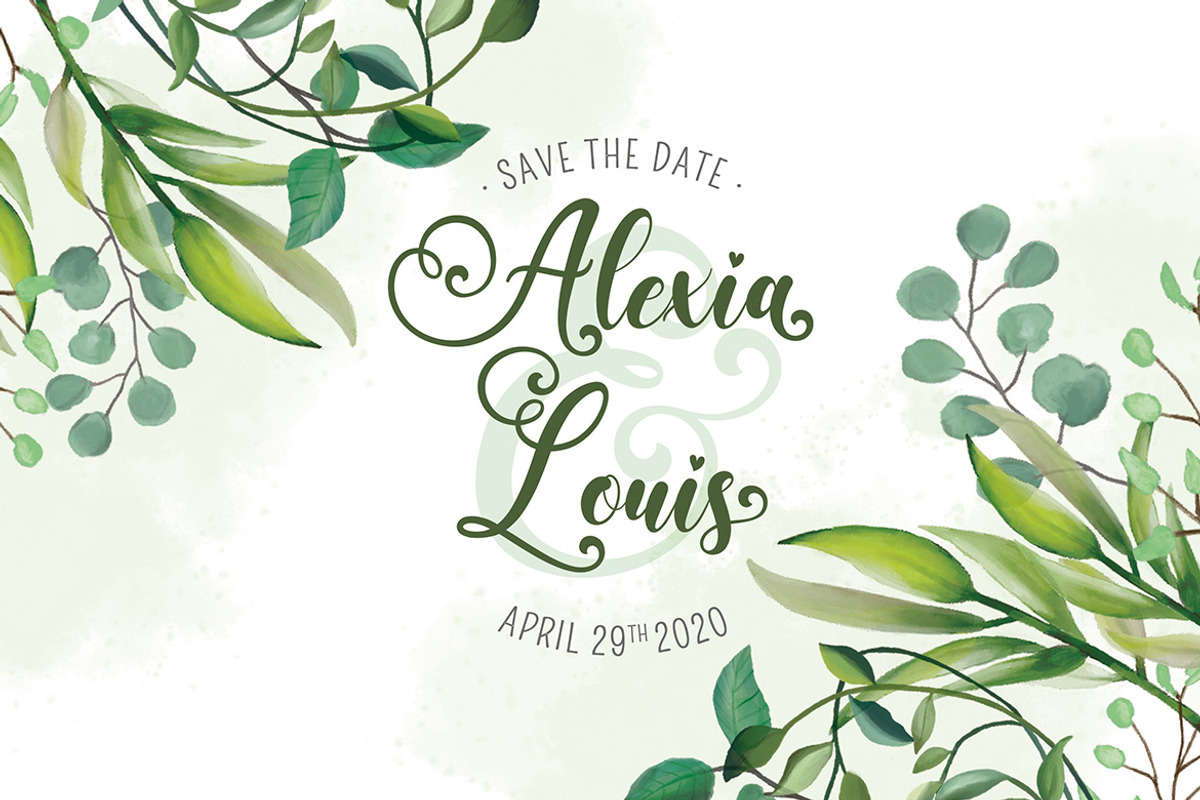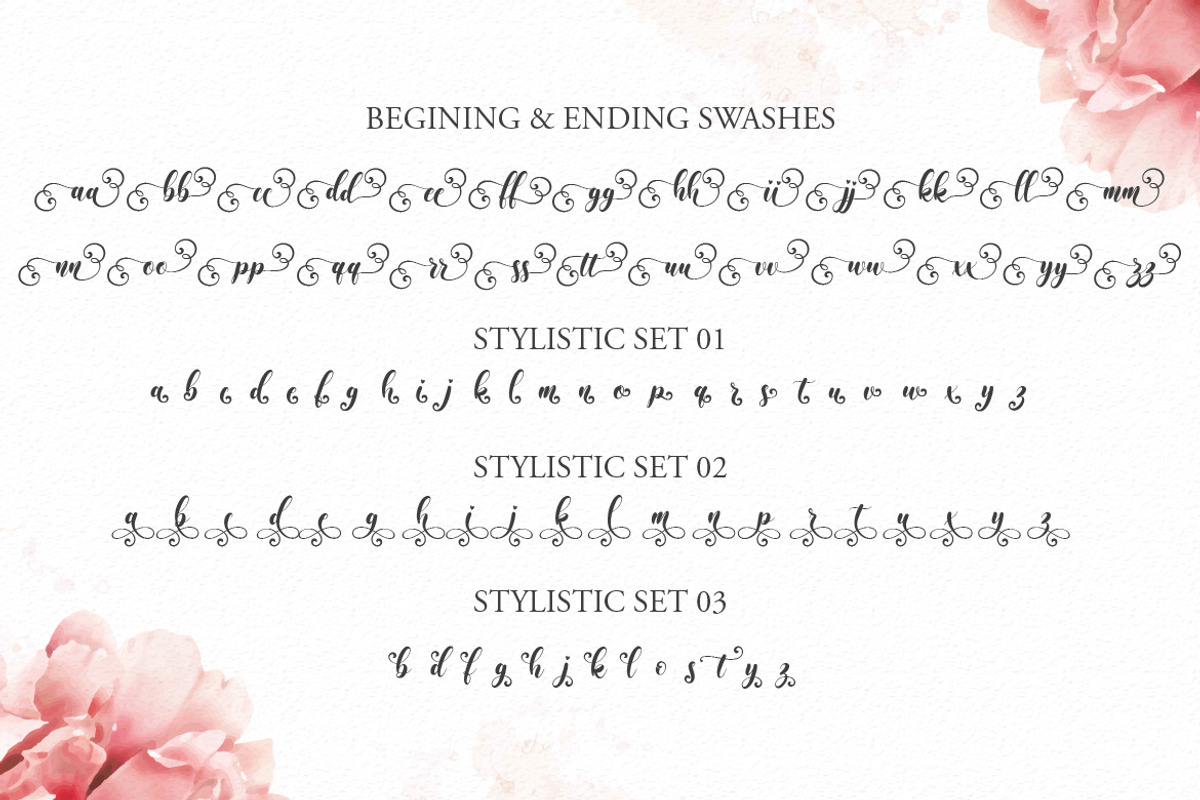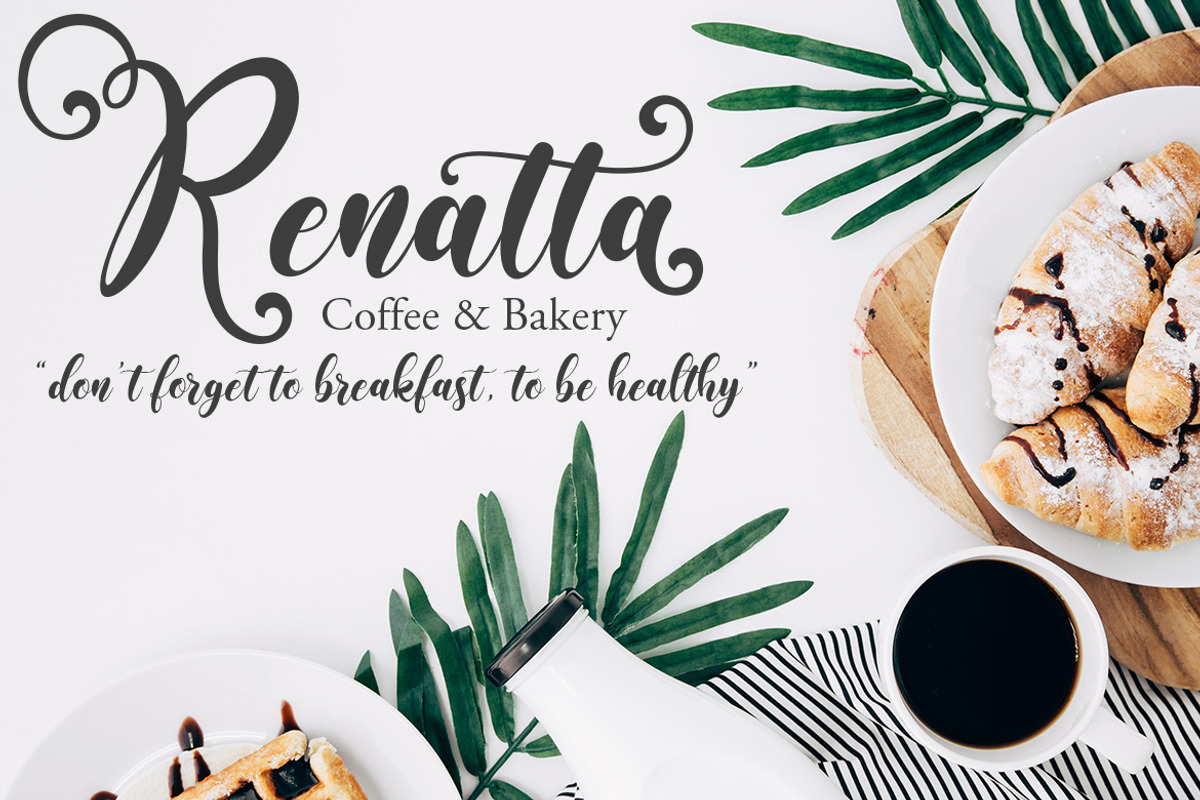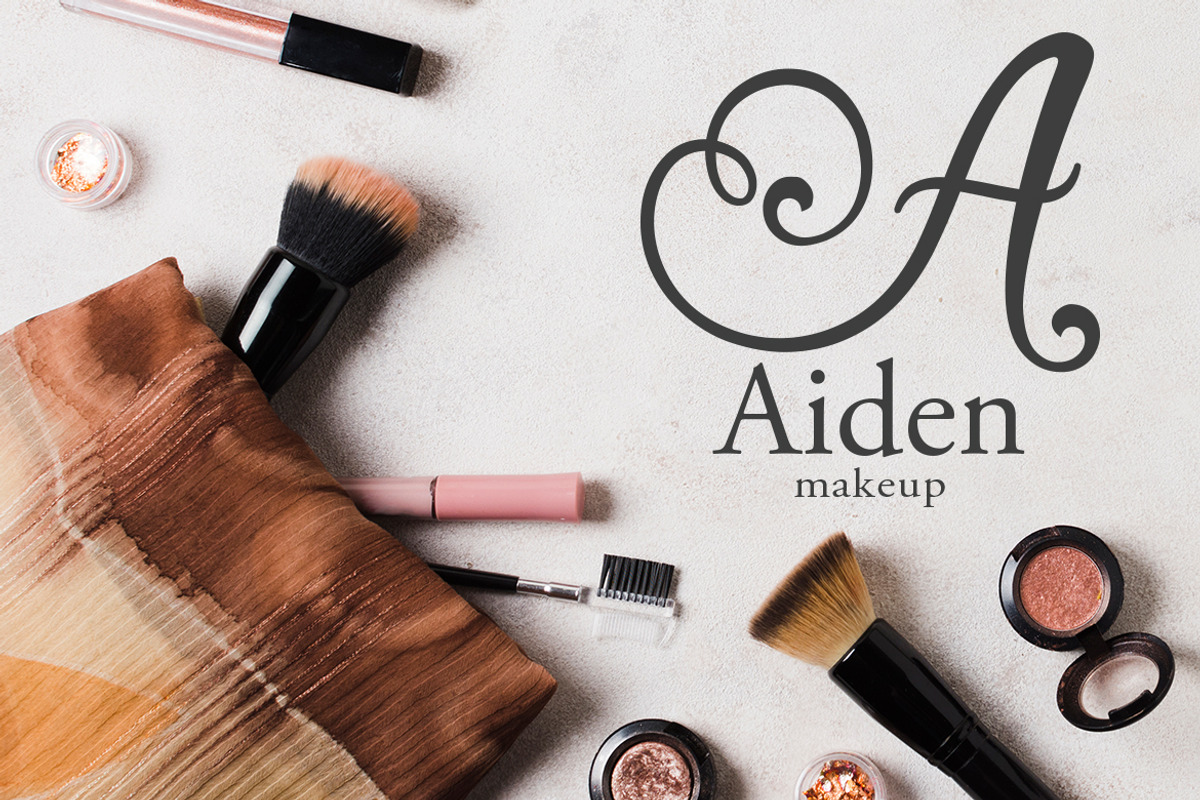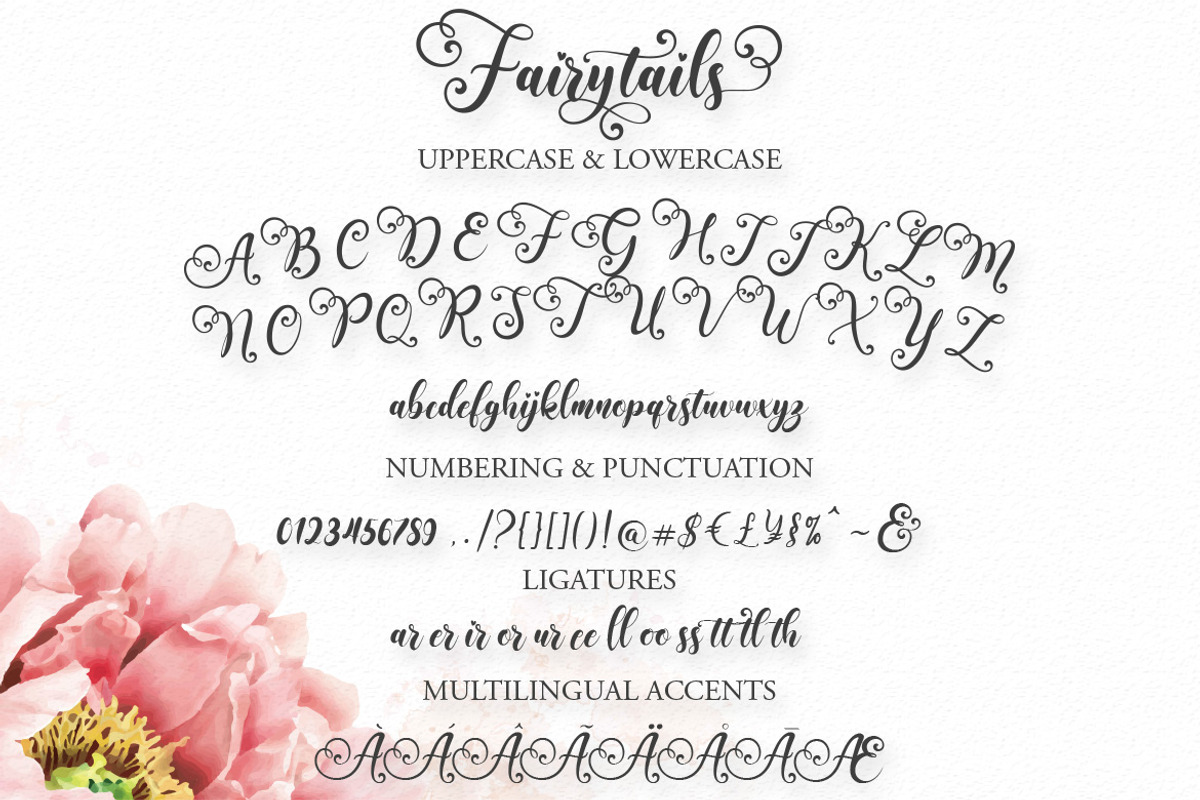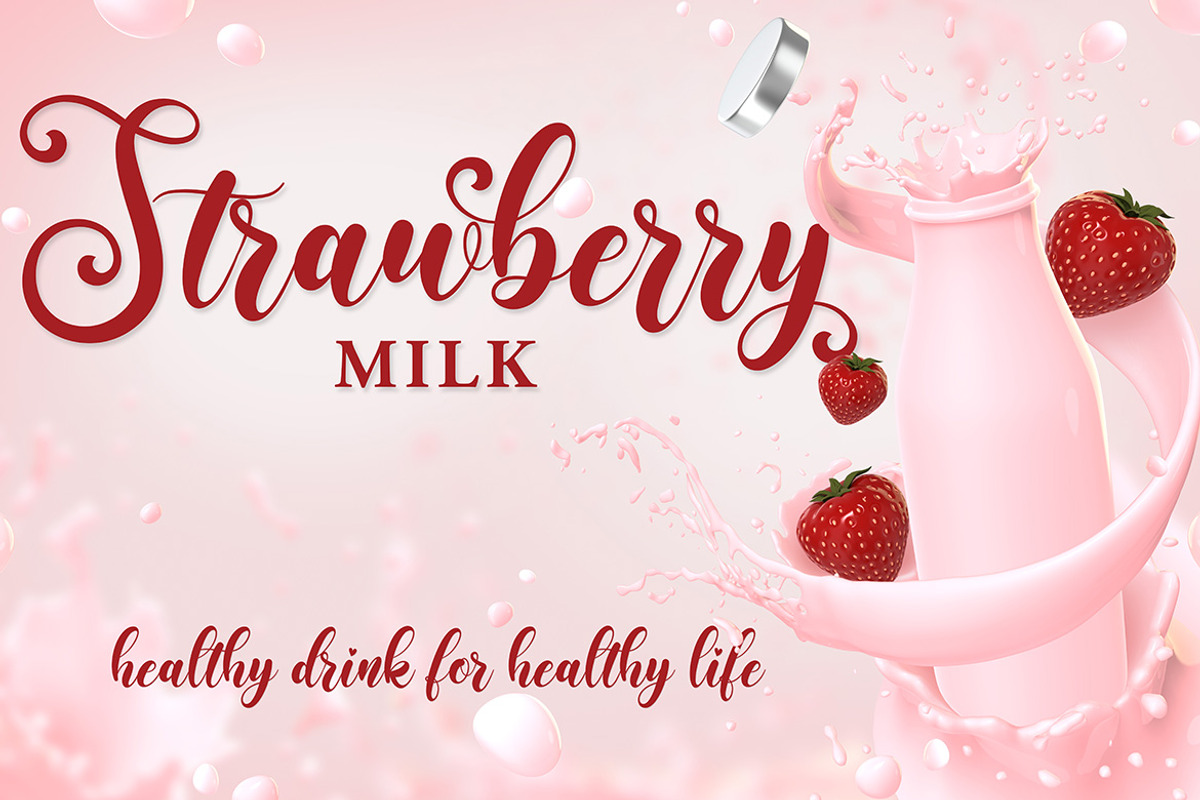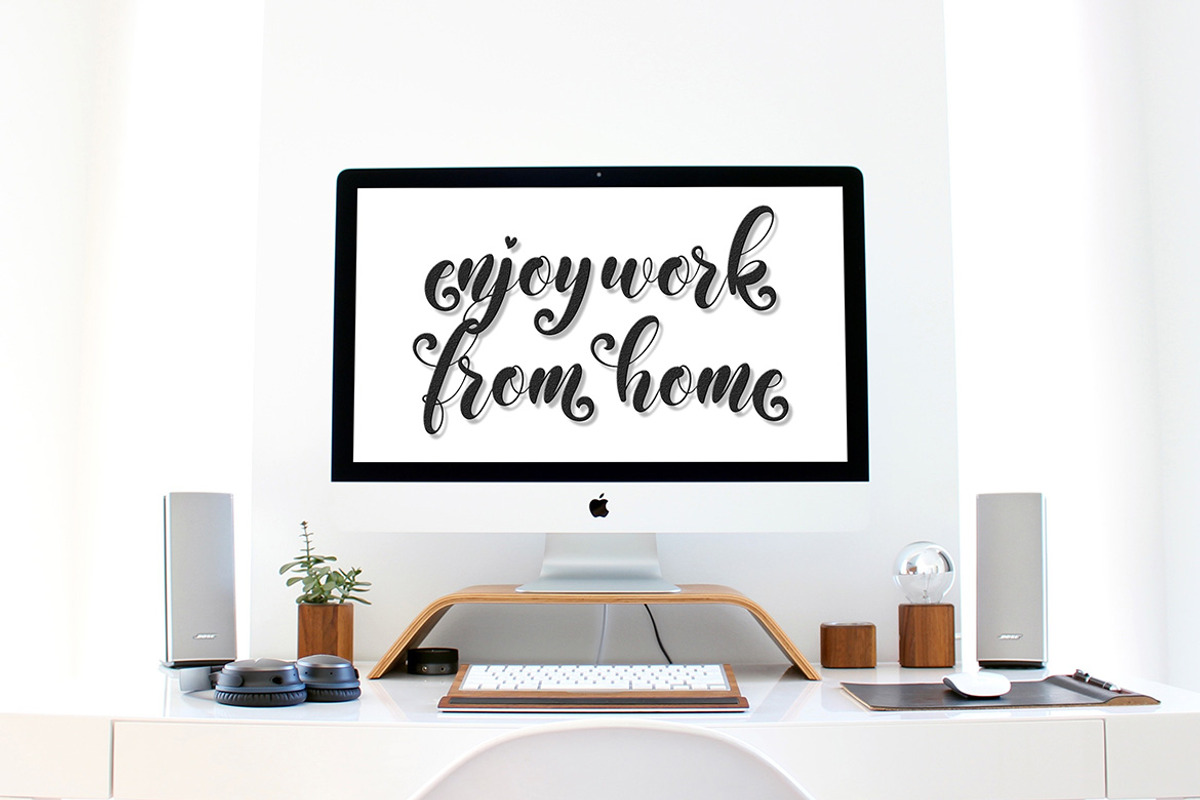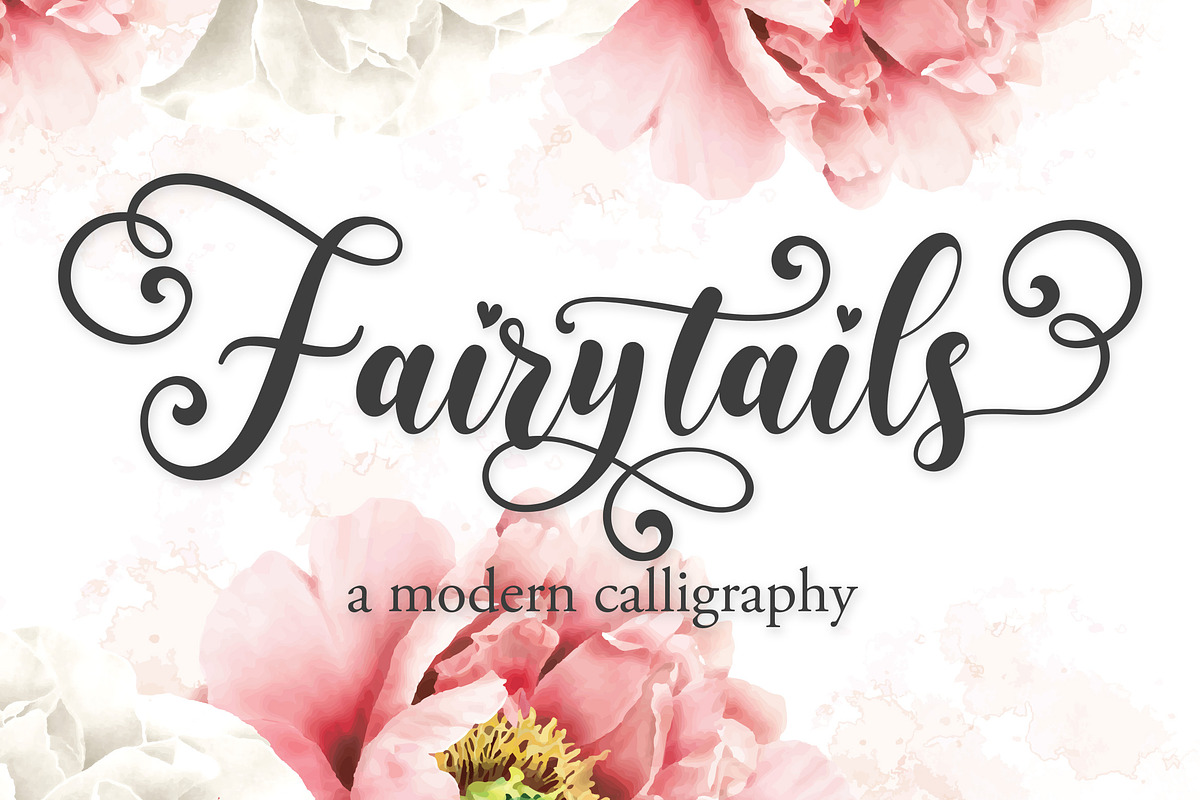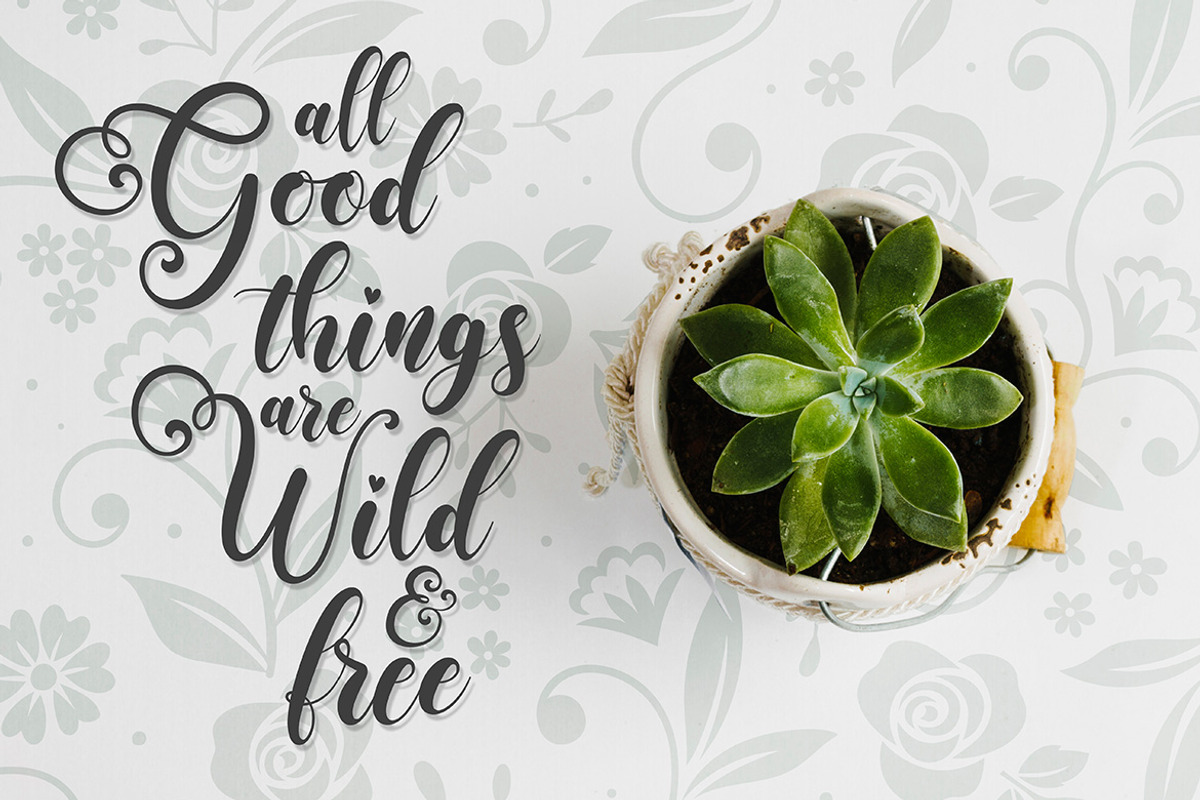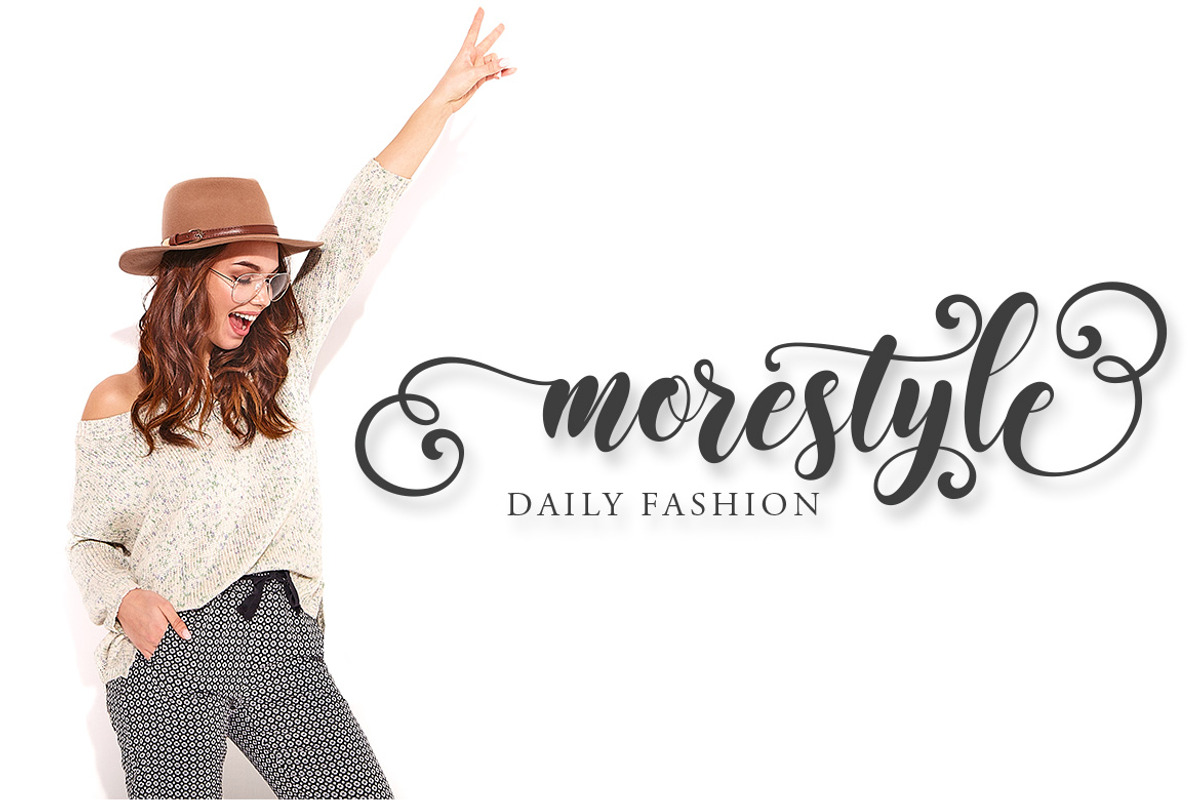
Fairytails | Modern Calligraphy
Fairytails is a modern calligraphy that bring luxury feel. The natural hand writing script is suitable for you who needs a typeface for headline, logotype, wedding, invitations, valentines day, etc.
This typeface is comes in uppercase, lowercase, punctuations, symbols & numerals, support opentype features in Private Use Area (PUA) Unicode. stylistic set alternate, ligatures, etc also support multilingual.